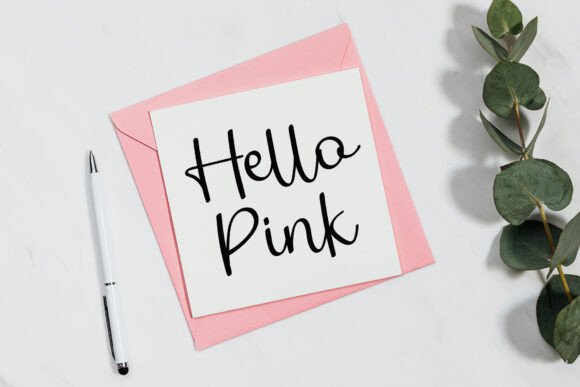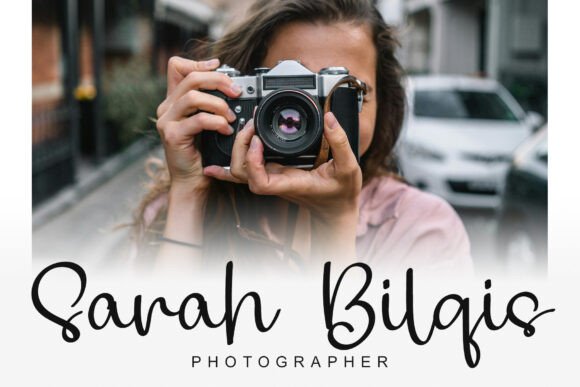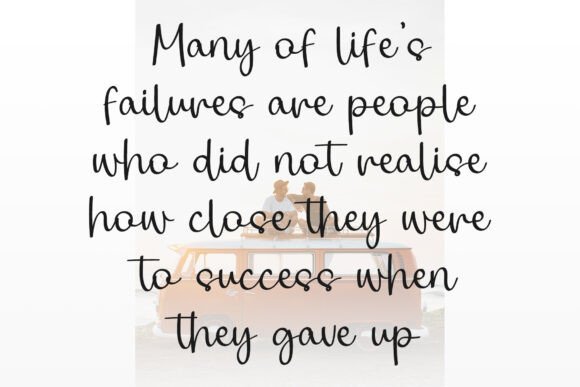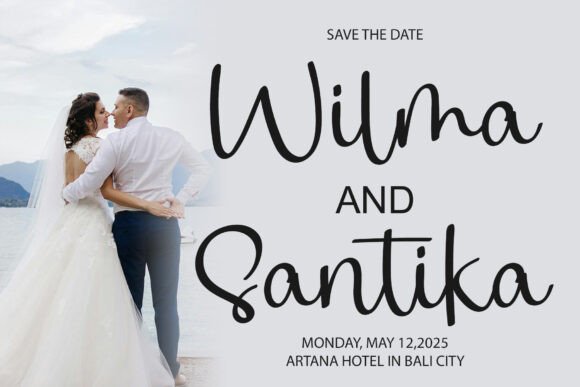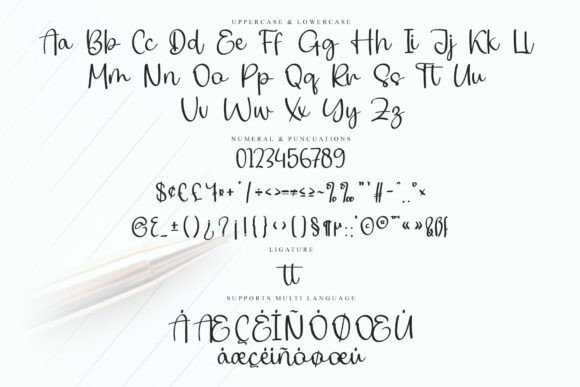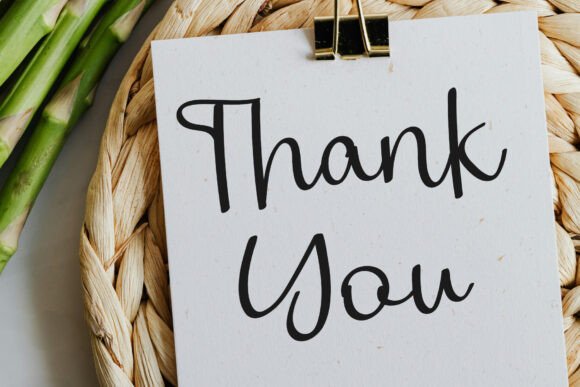
The Timeless Charm of Grandpa Handwriting Font
Do you remember the countless hours you spent as a child, watching your grandfather sign his name with a flourish? The way the pen danced across the paper, leaving a trail of elegance and character in its wake? For many of us, those moments are etched in our memories as a symbol of love, tradition, and a connection to the past.
That’s where the Grandpa Handwriting Font comes in – a beautiful, vintage-inspired script font that captures the essence of classic handwriting. With its fluid strokes and dynamic flow, this font is perfect for adding a touch of sophistication and uniqueness to your designs. Whether you’re a seasoned designer or a creative hobbyist, the Grandpa Handwriting Font is a valuable addition to your toolkit, offering a level of elegance and charm that’s hard to find in modern fonts.
Key Features of Grandpa Handwriting Font
- Unique Handwritten Style: Grandpa Handwriting Font is a custom-designed font that mimics the style of handwritten letters, perfect for creating a personal and nostalgic feel in your designs.
- Character Set: Grandpa Handwriting Font includes a comprehensive character set, including uppercase and lowercase letters, numbers, punctuation marks, and special characters, making it suitable for a wide range of applications.
- Style Variations: The font comes in multiple styles, including regular, bold, italic, and bold-italic, allowing you to customize the look and feel of your text to suit your design needs.
Grandpa Handwriting Font Review
I recently had the chance to work with the Grandpa Handwriting Font, and I have to say it’s a mixed bag. On the one hand, there are some things that really work well for this font. ✨ The nostalgic feel of the handwritten letters is perfect for projects that require a vintage or family-friendly vibe. It’s also incredibly easy to read, even at smaller font sizes. The bold weight is particularly nice for headings and titles.
However, there are some limitations to keep in mind. ⚠️ For one, the font can be a bit inconsistent in its spacing and letterforms. Some letters, like the “g” and “y”, can look a bit wonky at certain font sizes. Additionally, the font doesn’t have a lot of versatility in terms of styling options. It’s mostly a straightforward, handwritten font without a lot of flair.
Overall, I think the Grandpa Handwriting Font is a solid choice for projects that require a warm, nostalgic feel. Just be aware of its limitations, and you’ll be just fine.
Pros and Cons:
- ✨ Easy to read, even at small font sizes
- ✨ Perfect for vintage or family-friendly projects
- ✨ Bold weight is great for headings and titles
- ⚠️ Inconsistent spacing and letterforms
- ⚠️ Limited styling options
Use “Grandpa Handwriting Font” to add a personal touch to your designs, such as:
- Creating invitations or greeting cards for special occasions.
- Designing custom signs or banners for events or businesses.
- Adding a handwritten touch to your social media graphics or blog posts.